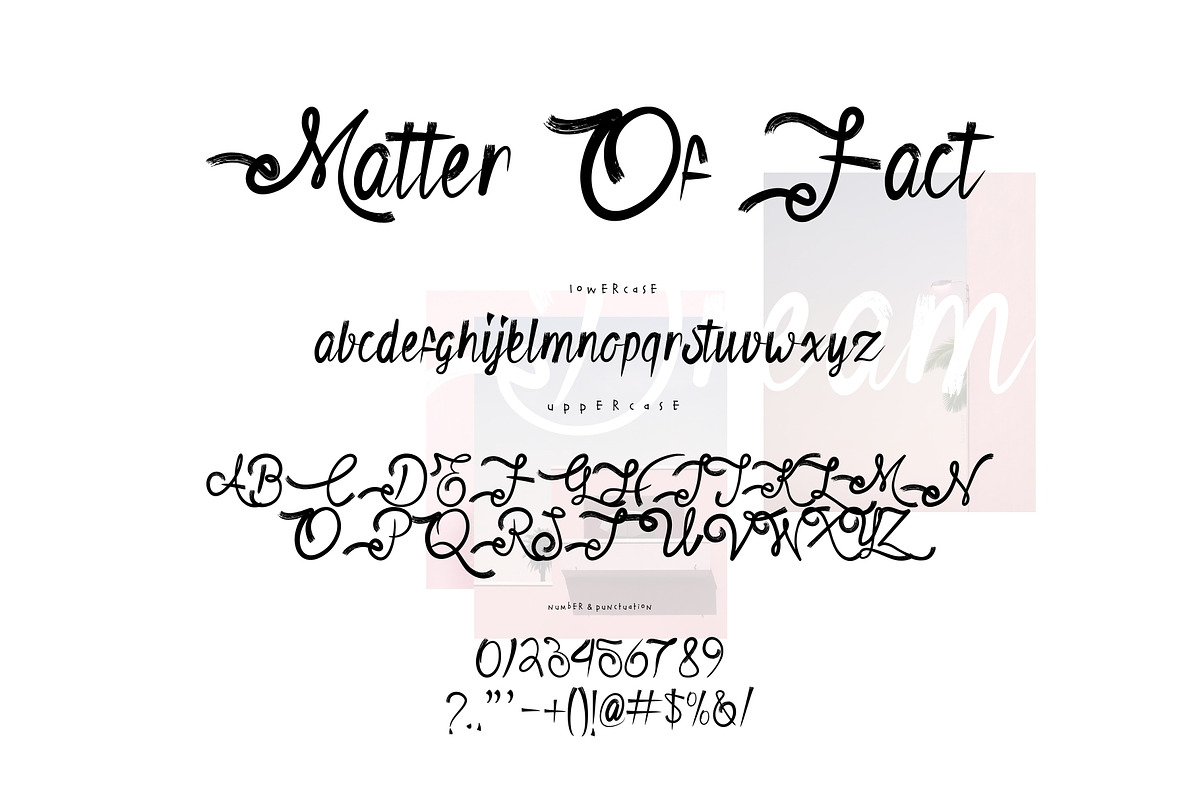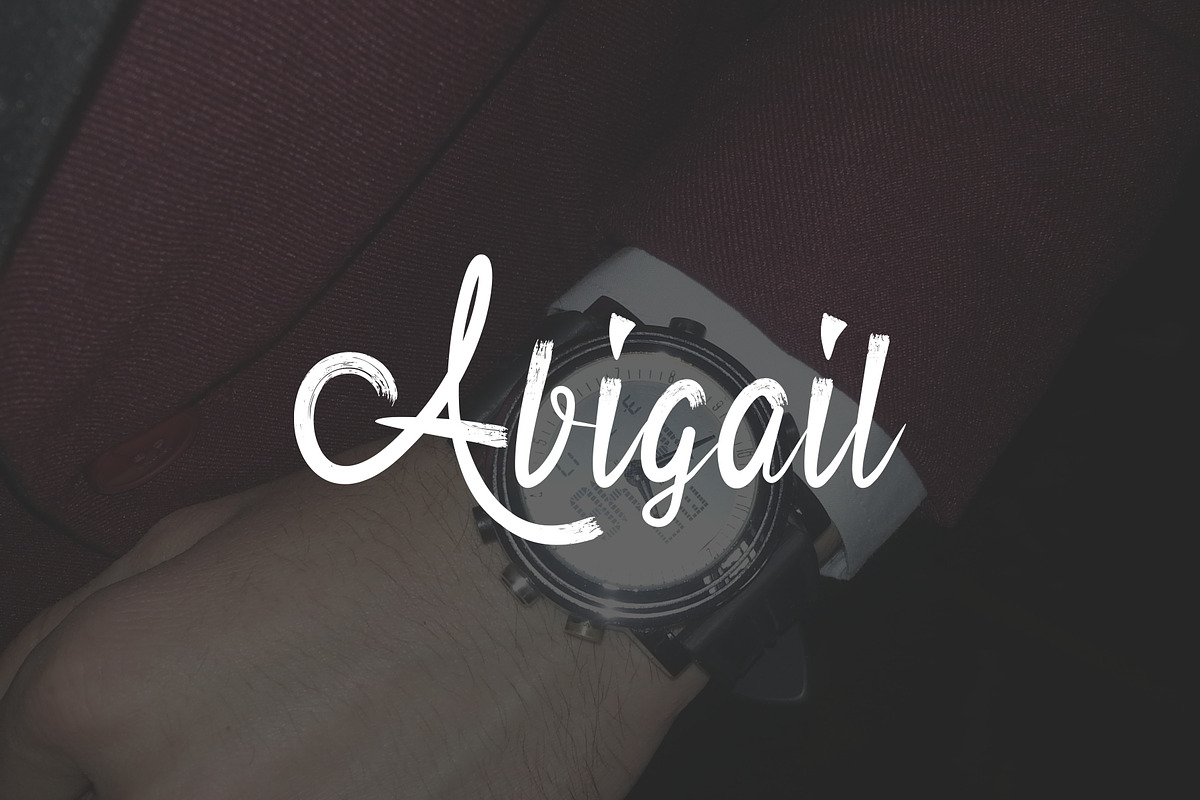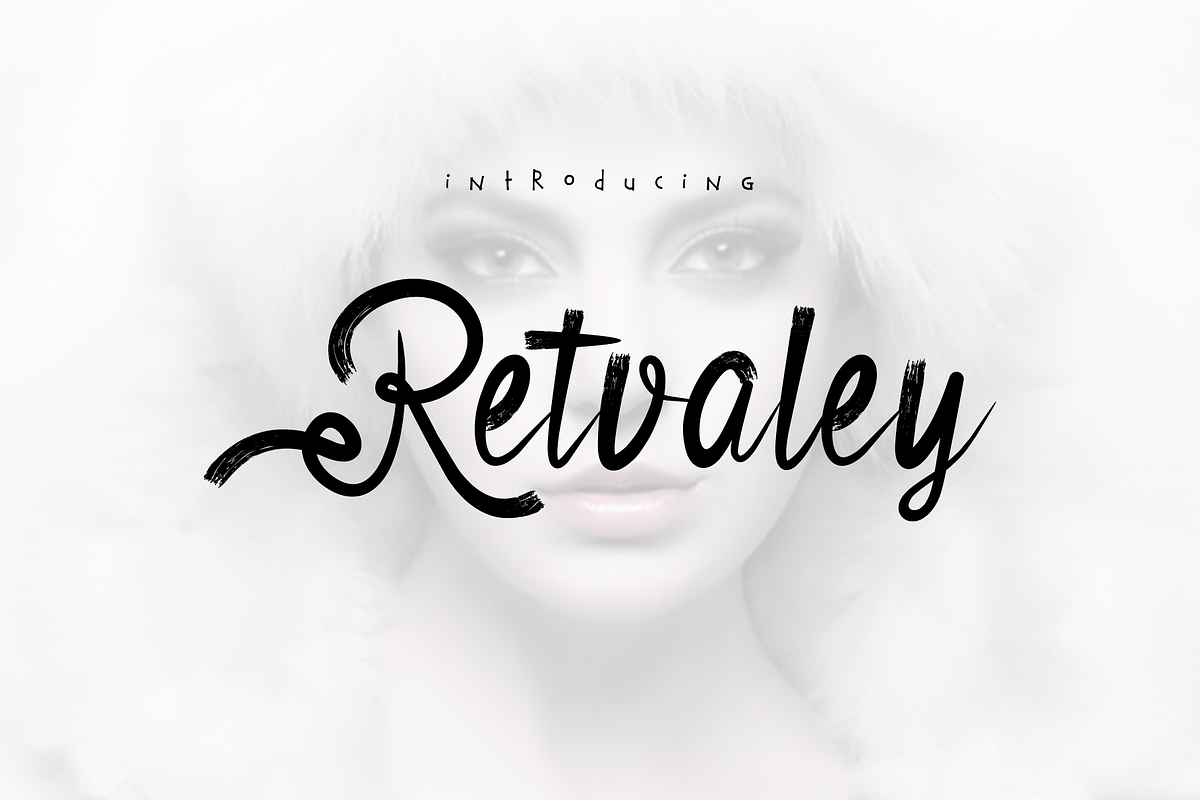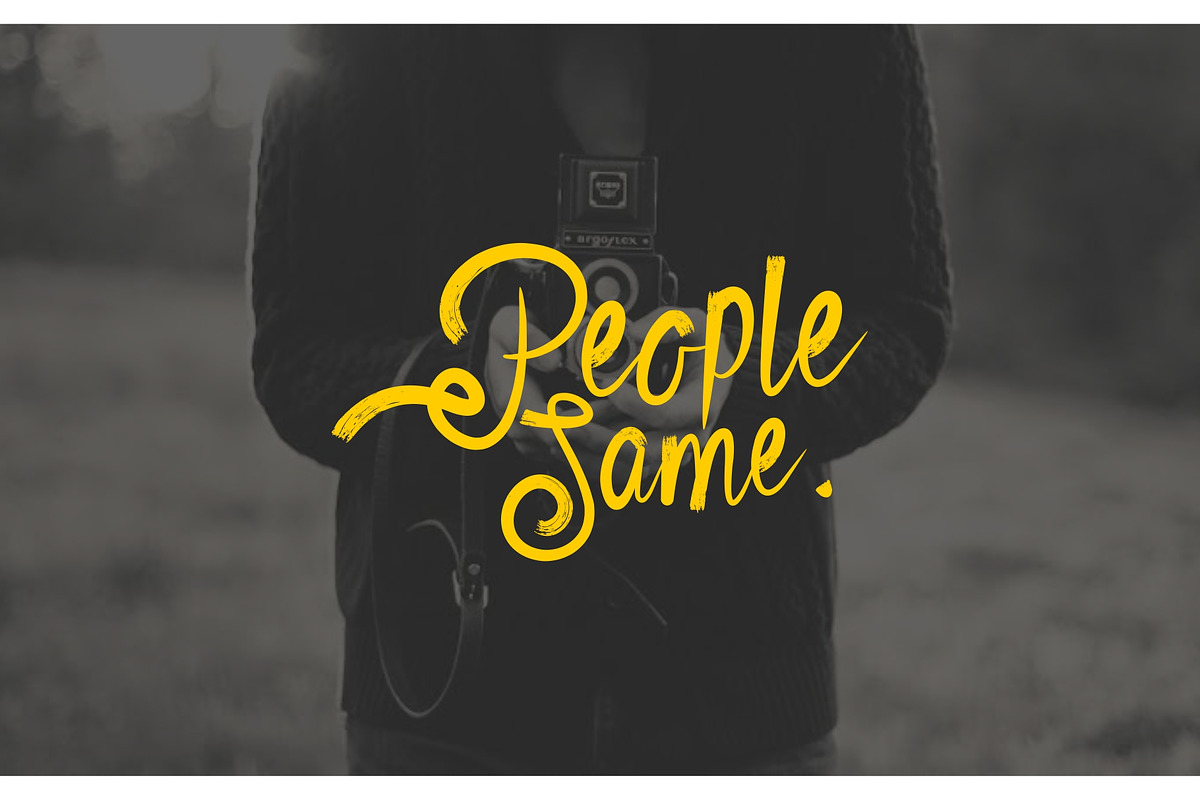
Retvaley Brush Font
Give your designs an authentic handcrafted feel. “Retvaley Brush Font” is perfectly suited to stationery, busuness card, logos and much more
Why Retvaley Brush Font is worth a look
Retvaley Brush Font by Maxim apperian fits naturally into Branding, posters, packaging, typography.